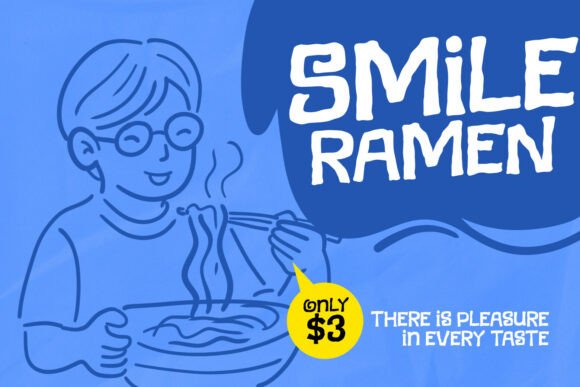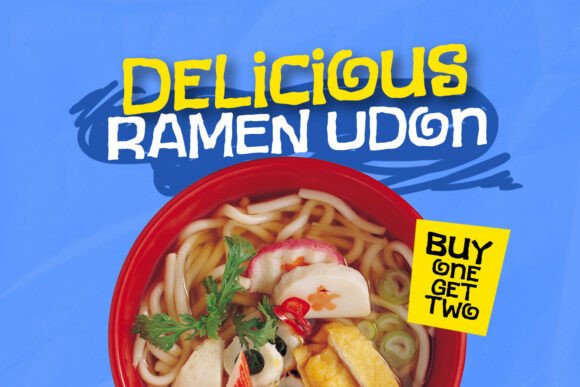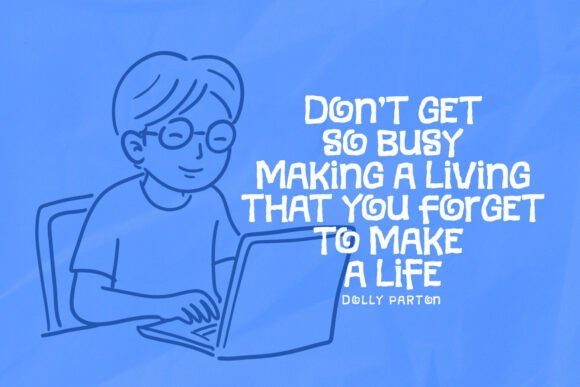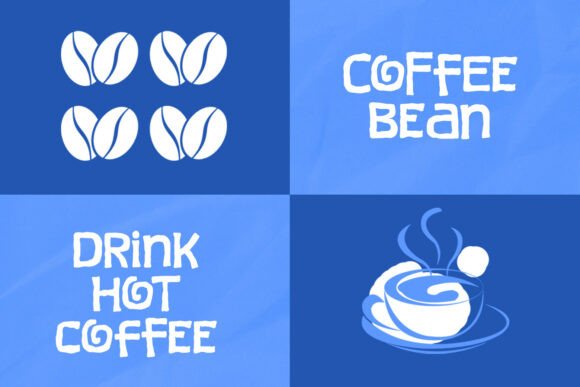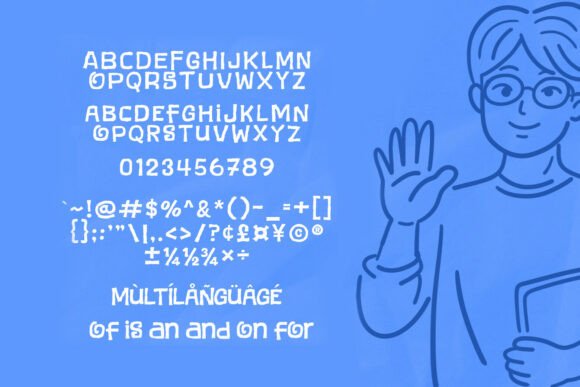
Introducing Code Bang Font: The Perfect Addition to Your Design Arsenal
Are you a designer or crafter looking for a font that can elevate your creative projects? Look no further than Code Bang Font! This modern and cute display font is perfect for a wide range of applications, from posters and logos to magazines, book covers, and banners. In this article, we’ll take a closer look at Code Bang Font and explore how it can help take your designs to the next level.
What is Code Bang Font?
Code Bang Font is a stylish and versatile display font that’s designed to make a statement. Its unique blend of modern and playful elements makes it perfect for designers who want to add a touch of personality to their work. Whether you’re creating a bold poster, a catchy logo, or a eye-catching banner, Code Bang Font is the perfect choice.
Key Features of Code Bang Font
- Modern and Cute Design: Code Bang Font boasts a fresh and contemporary design that’s sure to grab attention. Its cute and playful elements make it perfect for designs that require a touch of whimsy.
- High Versatility: This font is incredibly versatile and can be used for a wide range of projects, from posters and logos to magazines and book covers.
- Easy to Read: Despite its playful design, Code Bang Font is easy to read, making it perfect for designs that require a clear and concise message.
- Compatible with a Wide Range of Projects: Code Bang Font can be matched with an incredibly large set of projects, making it a great addition to your design arsenal.
How to Use Code Bang Font
- Posters: Use Code Bang Font to create eye-catching posters for events, promotions, or announcements.
- Logos: Create a memorable logo for your brand or business using Code Bang Font.
- Magazines: Use Code Bang Font to add a touch of personality to your magazine layouts.
- Book Covers: Make your book cover stand out with Code Bang Font.
- Banners: Use Code Bang Font to create attention-grabbing banners for events or promotions.
Why Choose Code Bang Font?
So why choose Code Bang Font over other fonts? Here are just a few reasons:
- Unique Design: Code Bang Font boasts a unique and stylish design that’s sure to grab attention.
- High Quality: This font is designed to be high-quality and easy to read, making it perfect for a wide range of projects.